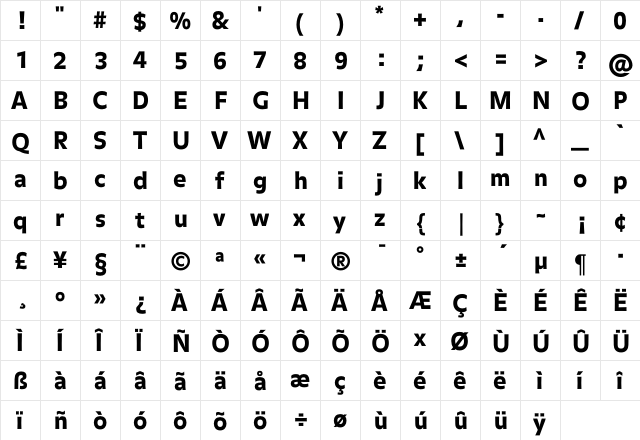
Balance Black
Design Context for Balance Typeface
Balance takes a measured approach to typography — its balanced proportions and neutral character make it a reliable workhorse for both digital and print work.
Pro Tip: Pair Balance with a font of contrasting weight or personality to build a more expressive typographic hierarchy.